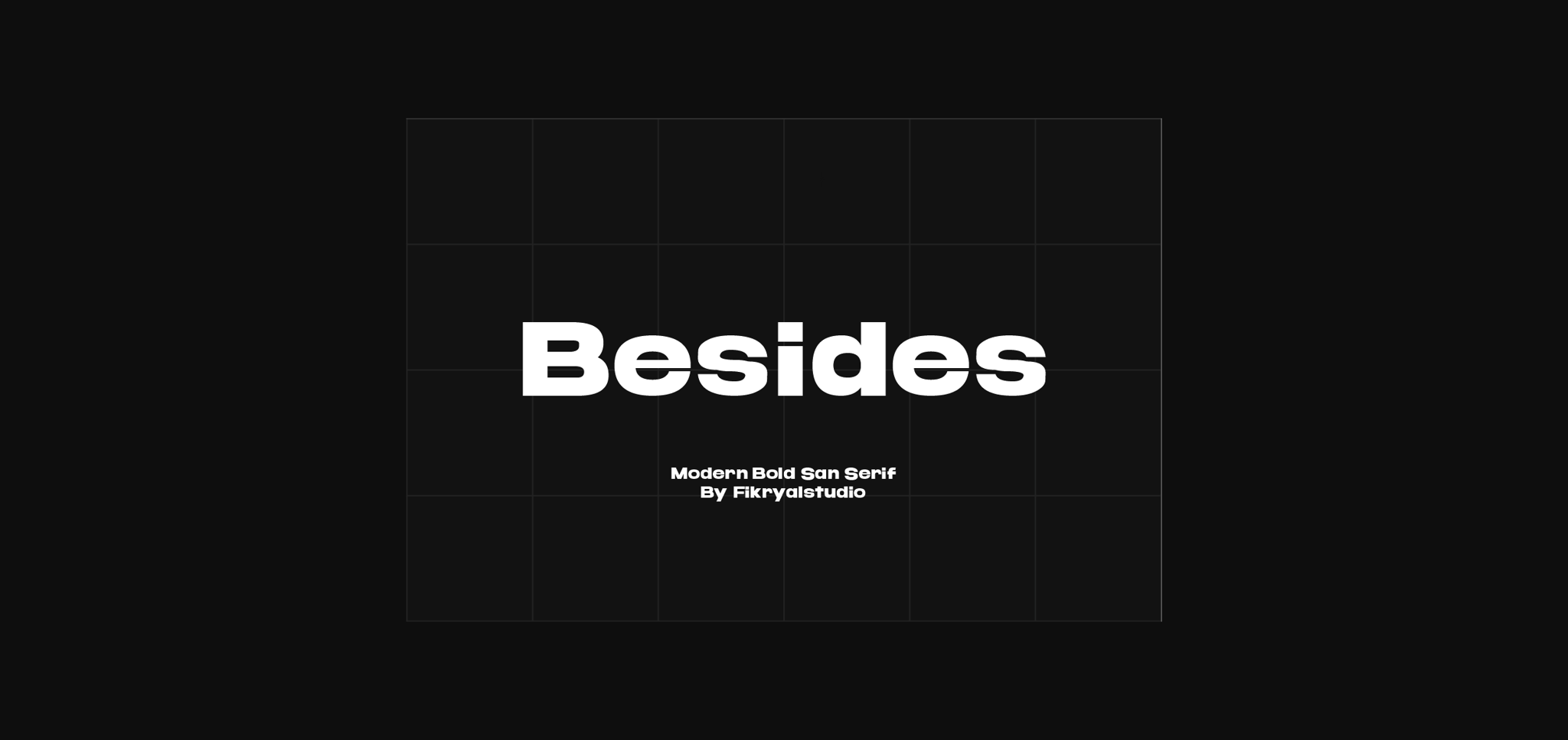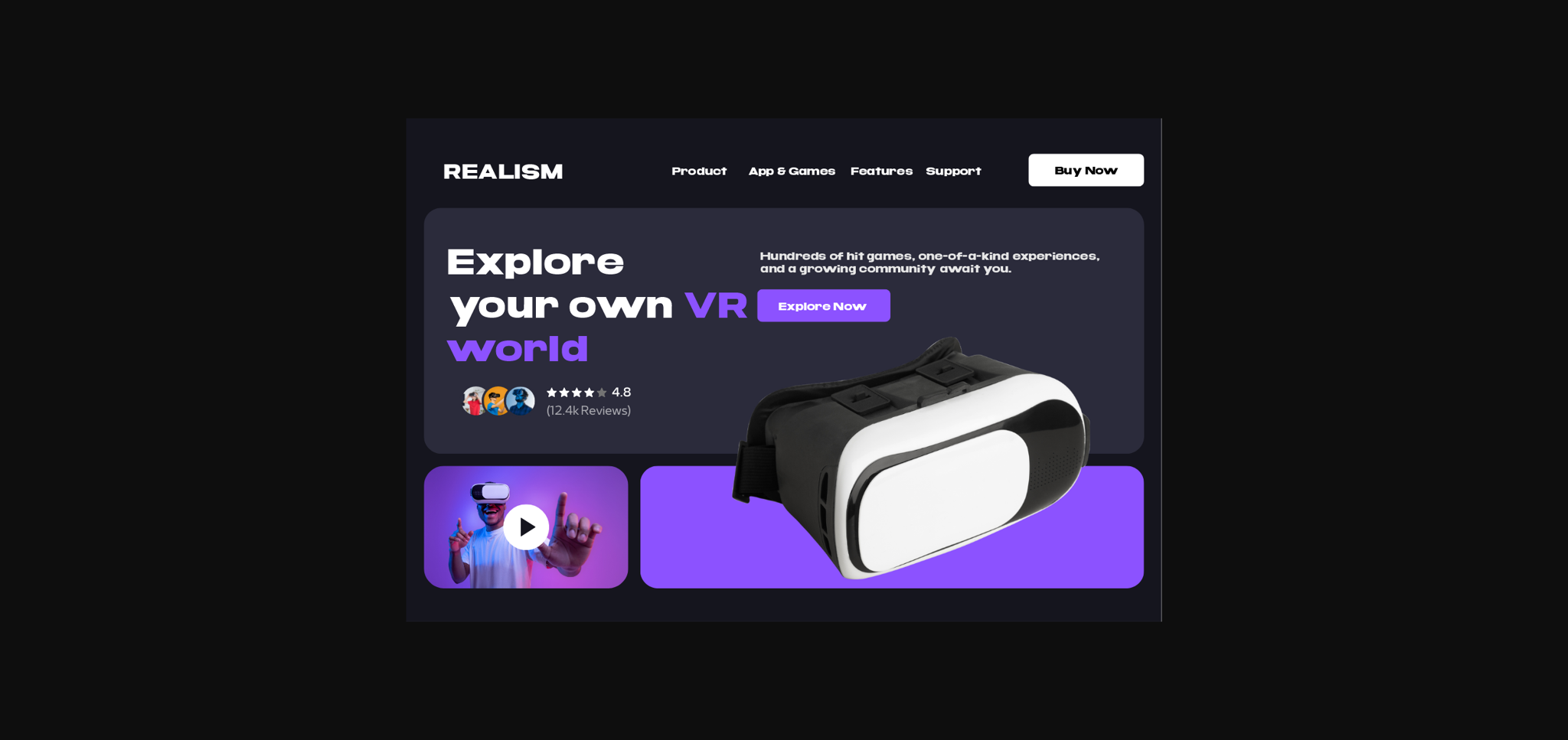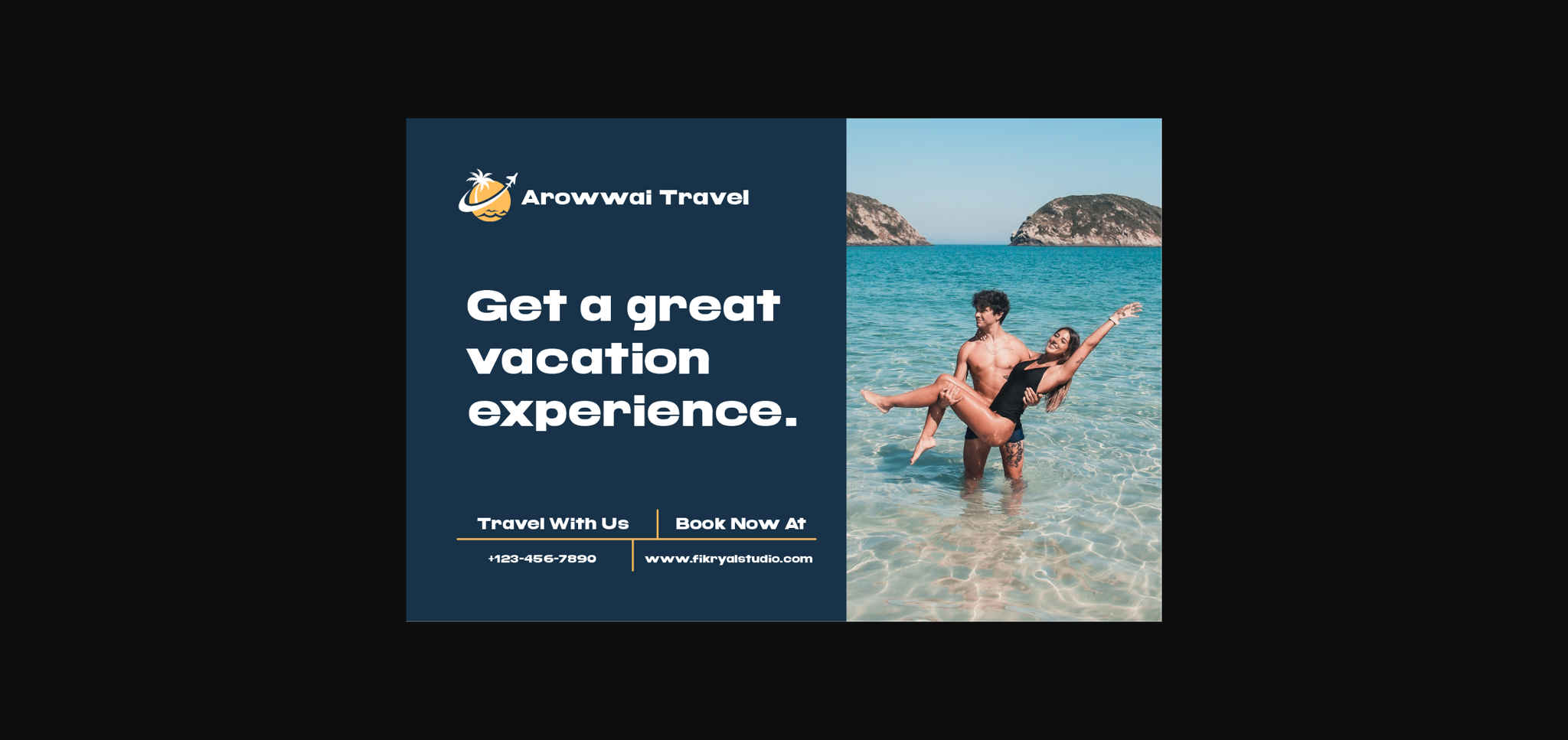
About Besides Font
Besides is a modern, hookless font that appears with boldness and clarity. With bold, clear characters, Besides provides a bold and eye-catching appearance for your design projects. The clean, contemporary sans serif design makes Besides the perfect choice for titles, logos, and other design elements that need a strong appeal.